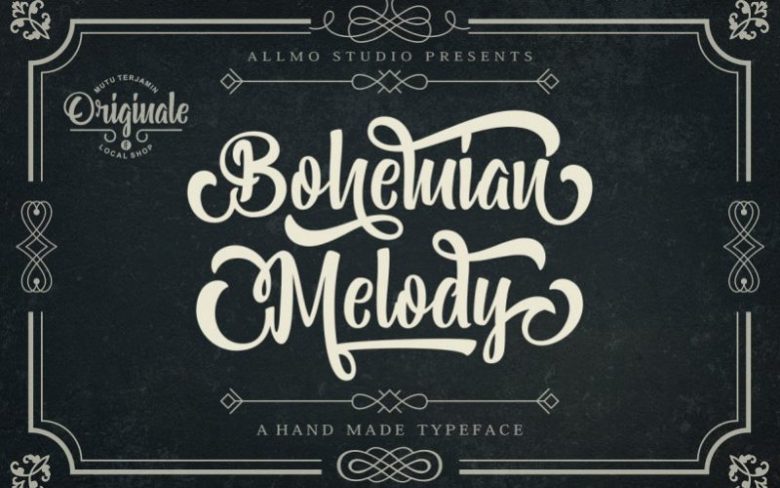
Bohemian Melody Calligraphy Font
Are you looking for a powerfull typeface.. yes , Bohemian Melody script is the best choice. Bohemian Melody come with natural, modern, vintage style, script and hand lettering character “Powerfull identity will give more value for your work”, so you need this in your branding.